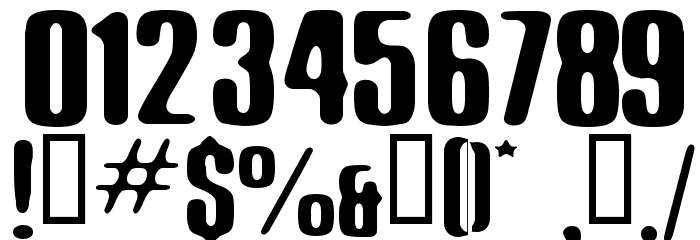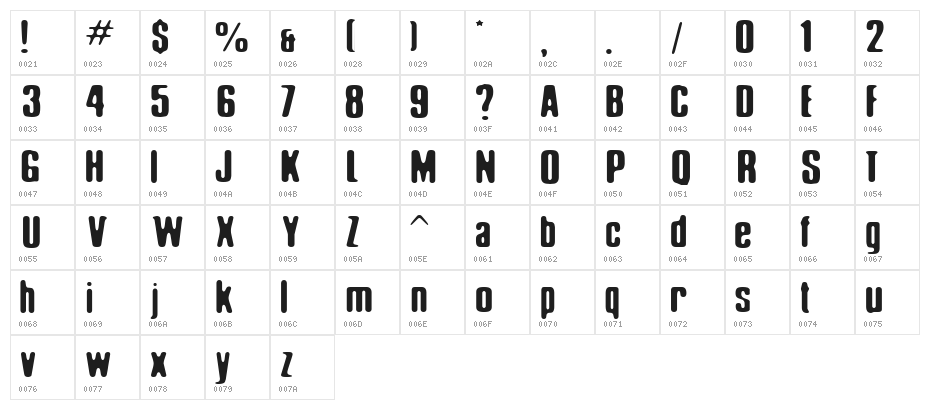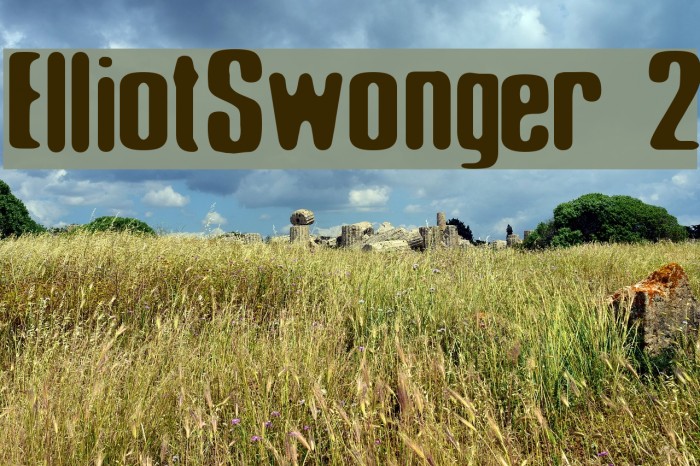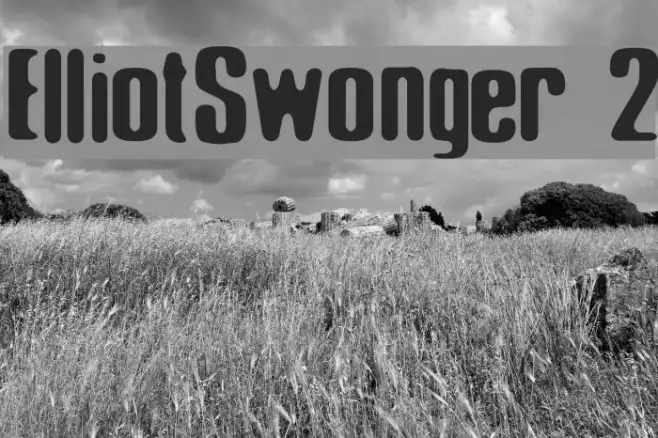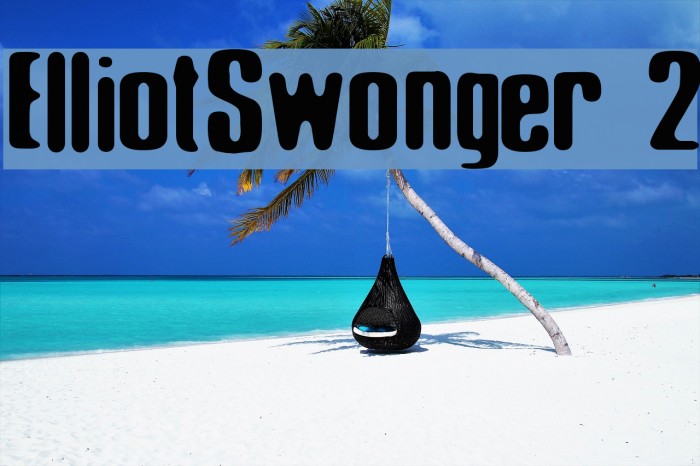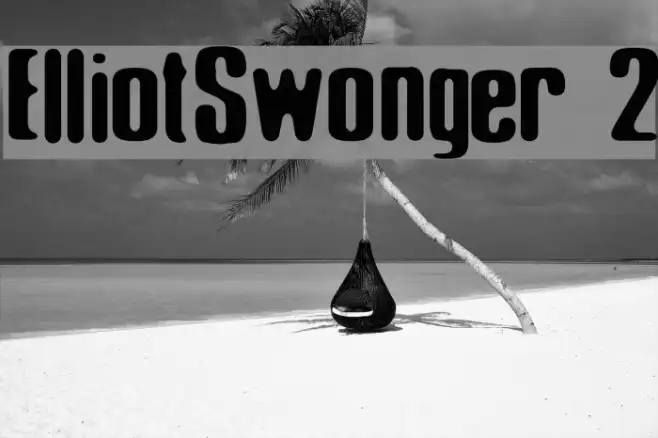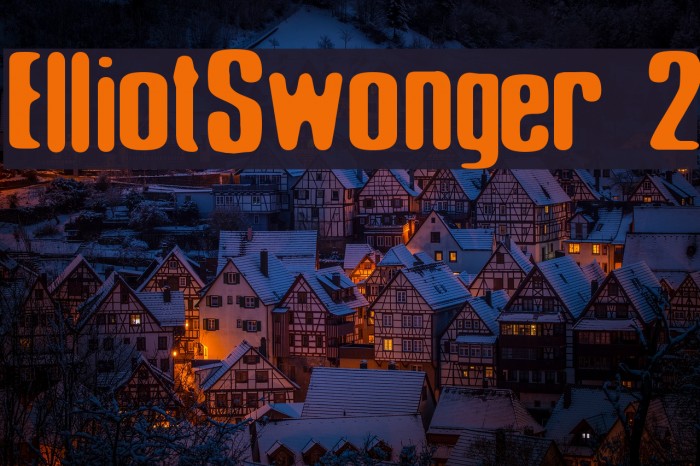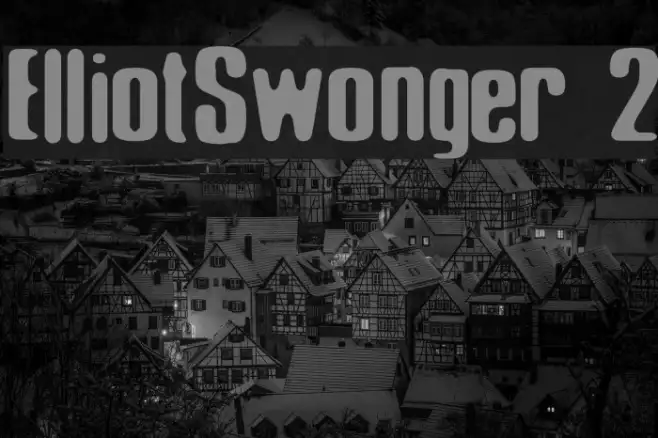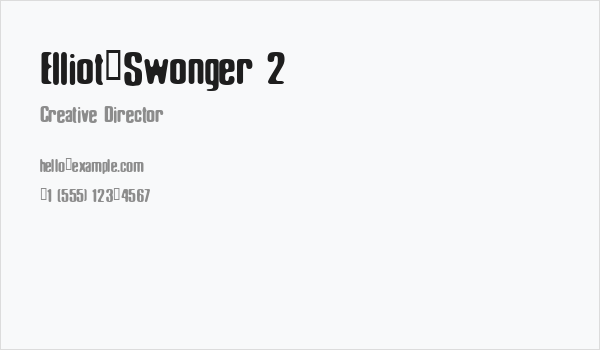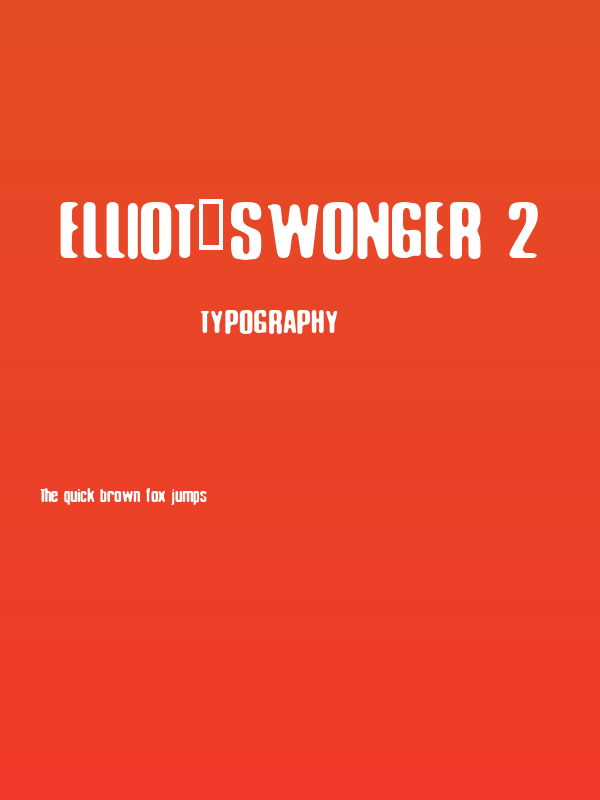
Elliot_Swonger 2 Font
Elliot_Swonger 2 Description
This bold and striking font features thick, uniform strokes with a slightly condensed appearance. The characters are rounded with a smooth, flowing design that gives a modern and playful feel. The uppercase letters are tall and commanding, while the lowercase letters maintain a consistent style, providing a cohesive look. The numbers and special characters follow the same bold and rounded style, ensuring readability and visual impact. This font is ideal for making a statement with its strong presence and unique character shapes.
| Proposed Projects | Ideal for branding, posters, headlines, and any project that requires a bold and eye-catching typeface. |